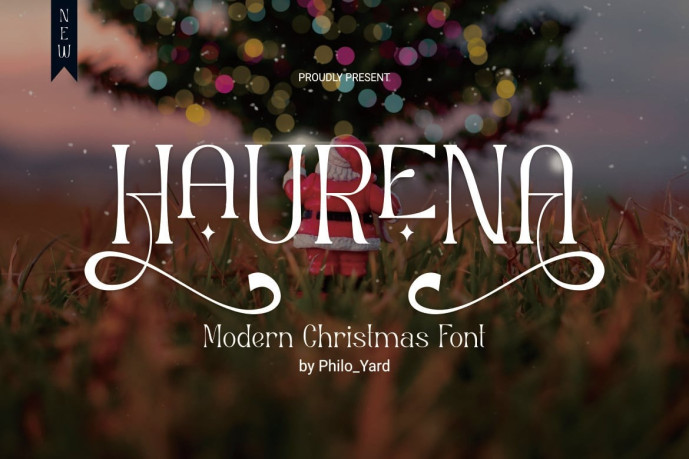
Haurena – Modern Christmas Font
We are proud to present our latest product *Haurena – Modern Christmas Font This is a modern and authentic font for professional needs and product branding. This font is suitable for various branding projects such as quotes, logos, blog headers, posters, ribbons, letters, invitations, magazines, weddings, fashion, stationery, etc. It is designed to be versatile and flexible so it can be used in various projects and media in various contexts.